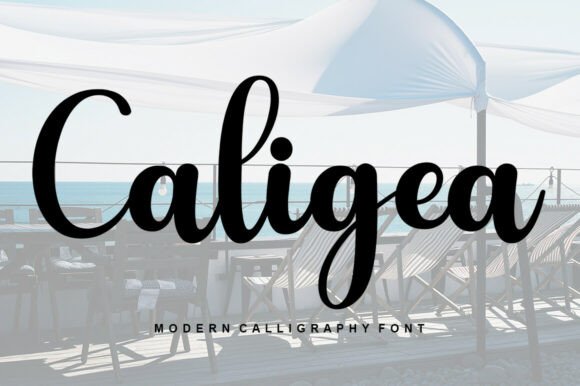
Caligea Font: The Elegant and Charming Choice for Your Designs
When it comes to choosing the right font for your design, it’s essential to consider the overall aesthetic and tone you want to convey. If you’re looking for a font that exudes elegance and charm, look no further than Caligea Font. This beautiful handwritten font is perfect for a variety of design projects, from wedding invitations and thank you cards to quotes, greeting cards, logos, and business cards.
The Characteristics of Caligea Font
Caligea Font is a stunning example of a handwritten font that looks like it was written with love and care. Its elegant and charming characteristics make it an excellent choice for designs that require a personal touch. The font features:
- Beautiful lettering: Each letter is carefully crafted to create a sense of fluidity and movement, making it perfect for designs that require a touch of elegance.
- Unique character set: Caligea Font features a unique character set that includes uppercase and lowercase letters, numbers, and punctuation marks.
- High-quality design: The font is designed with high-quality lines and curves, making it perfect for printing and digital use.
Uses of Caligea Font
Caligea Font is an incredibly versatile font that can be used in a variety of design projects. Here are some of the most popular uses of this beautiful font:
- Wedding Invitations: Caligea Font is an excellent choice for wedding invitations, as it adds a touch of elegance and romance to your design.
- Thank You Cards: The font is also perfect for thank you cards, as it conveys a sense of gratitude and appreciation.
- Quotes: Caligea Font is a great choice for quotes, as it adds a touch of elegance and sophistication to your design.
- Greeting Cards: The font is perfect for greeting cards, as it conveys a sense of warmth and friendliness.
- Logos: Caligea Font can also be used to create beautiful logos that exude elegance and sophistication.
- Business Cards: The font is an excellent choice for business cards, as it adds a touch of professionalism and elegance to your design.
Why Choose Caligea Font?
There are many reasons why Caligea Font is an excellent choice for your design projects. Here are some of the benefits of using this beautiful font:
- Elegant and Charming: Caligea Font is an elegant and charming font that adds a touch of sophistication to your design.
- Versatile: The font is incredibly versatile and can be used in a variety of design projects.
- High-Quality: Caligea Font is designed with high-quality lines and curves, making it perfect for printing and digital use.
- Easy to Read: The font is easy to read, making it perfect for designs that require a clear and concise message.
Tips for Using Caligea Font
Here are some tips for using Caligea Font in your design projects:
- Use it sparingly: Caligea Font is a beautiful font, but it can be overwhelming if used too much. Use it sparingly to add a touch of elegance to your design.
- Pair it with other fonts: Caligea Font pairs well with other fonts, such as sans-serif fonts. Experiment with different font combinations to find the perfect look for your design.
- Use it for headings: Caligea Font is perfect for headings, as it adds a touch of elegance and sophistication to your design.
In conclusion, Caligea Font is a beautiful and elegant font that is perfect for a variety of design projects. Its charming characteristics and high-quality design make it an excellent choice for wedding invitations, thank you cards, quotes, greeting cards, logos, and business cards. With its versatility and ease of use, Caligea Font is a great addition to any designer’s toolkit.